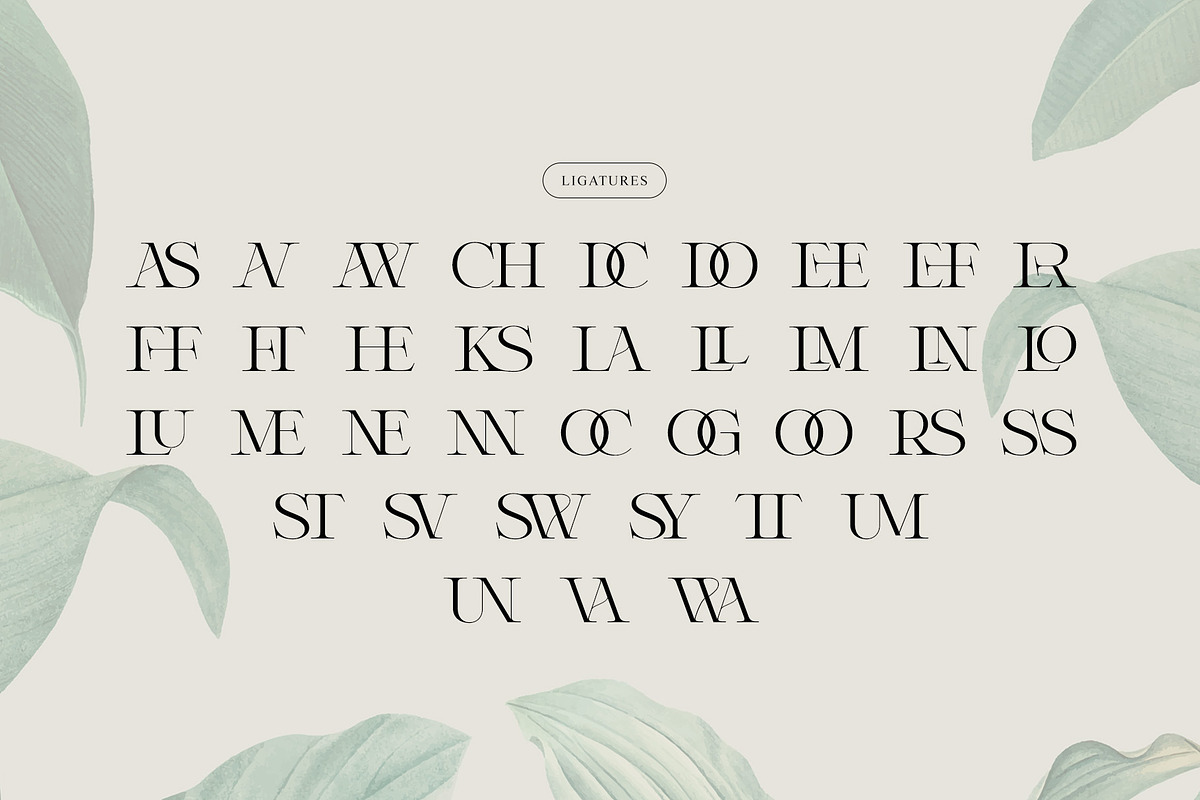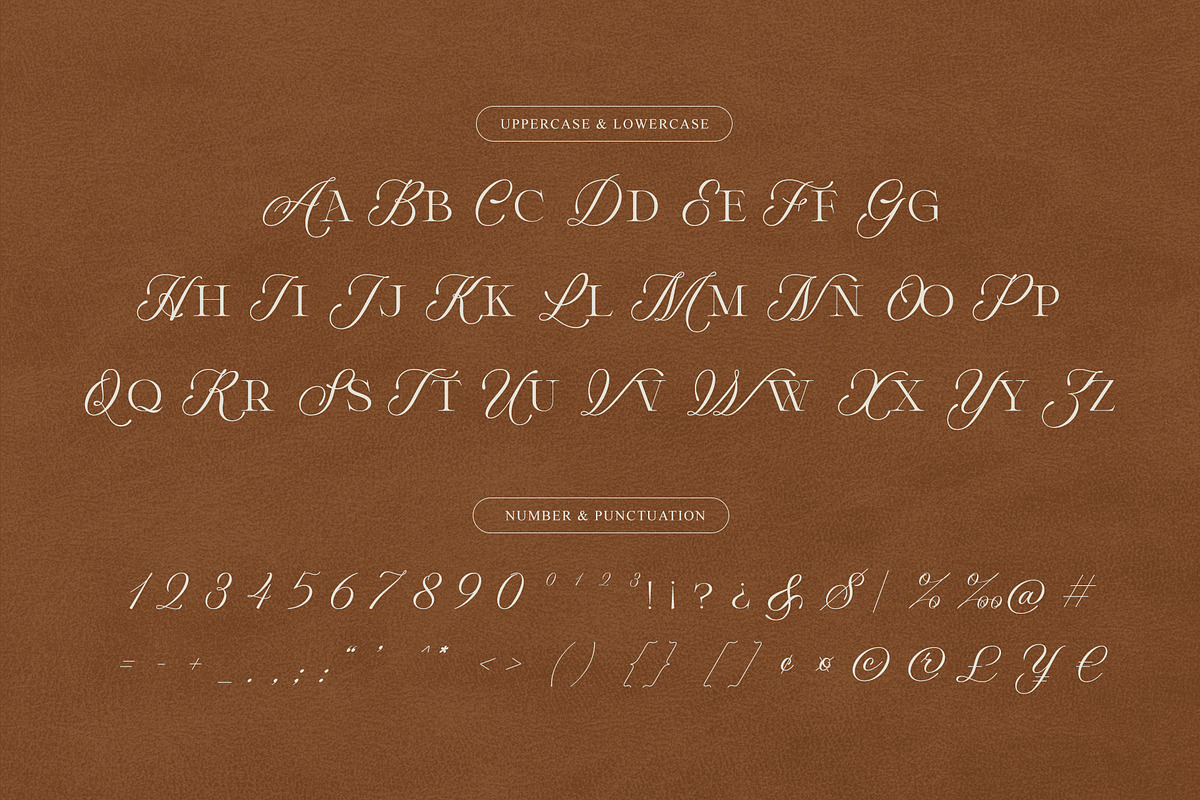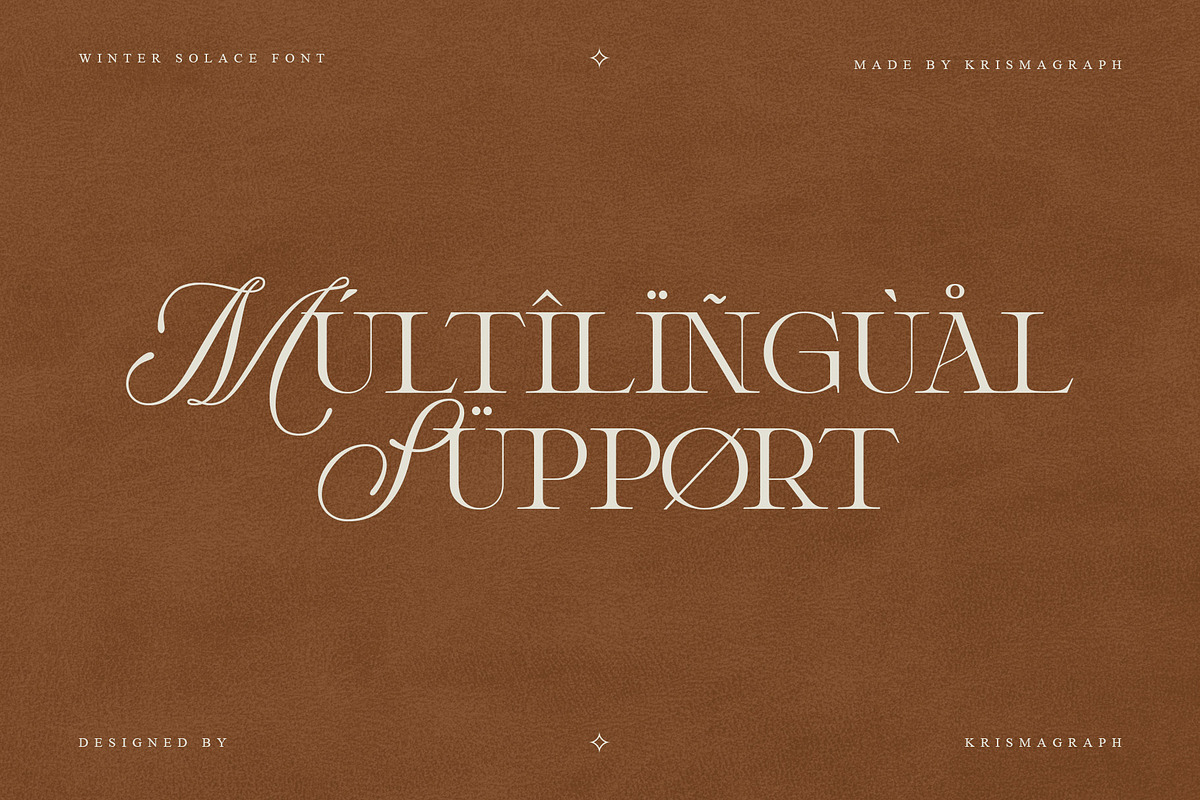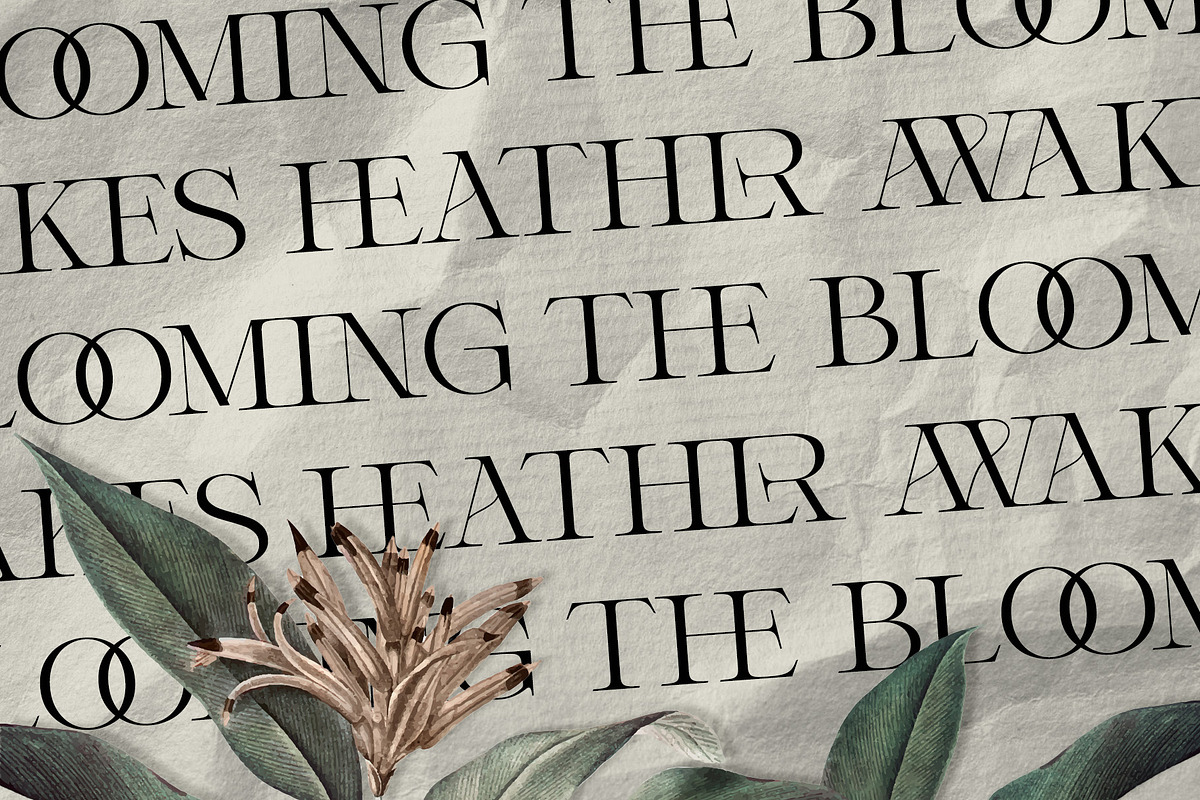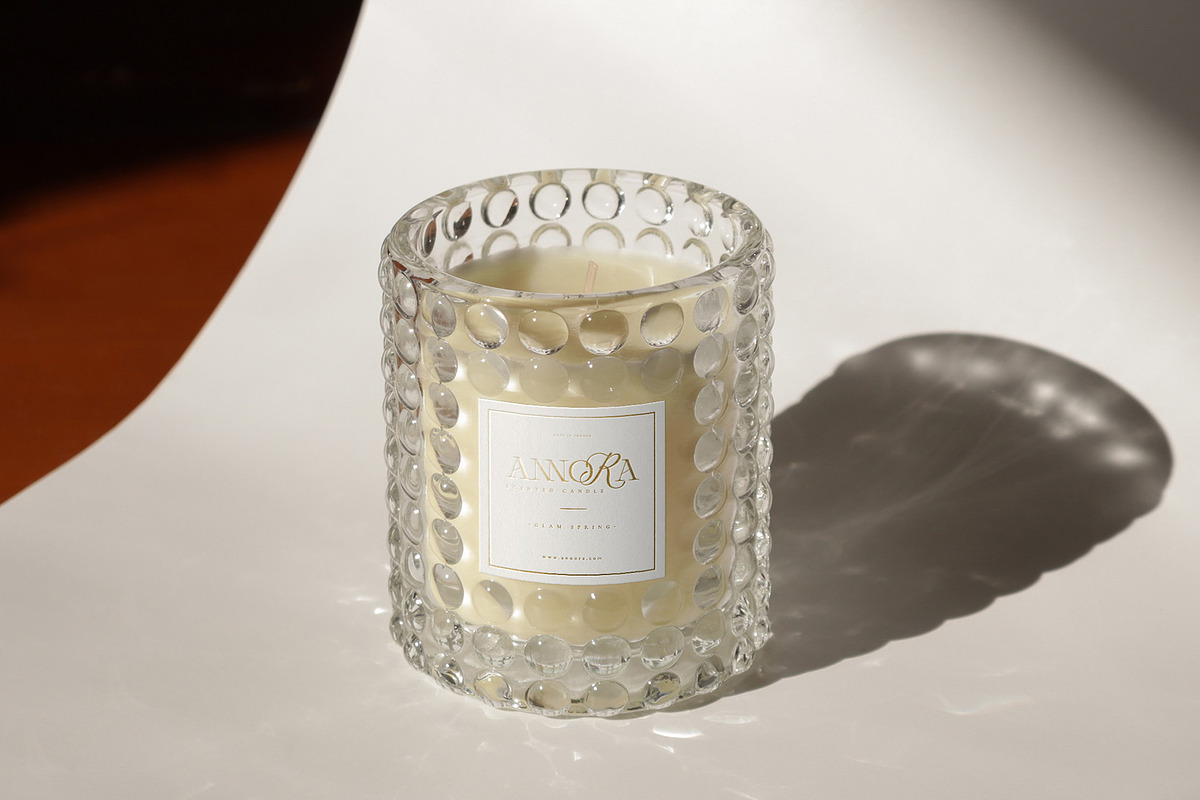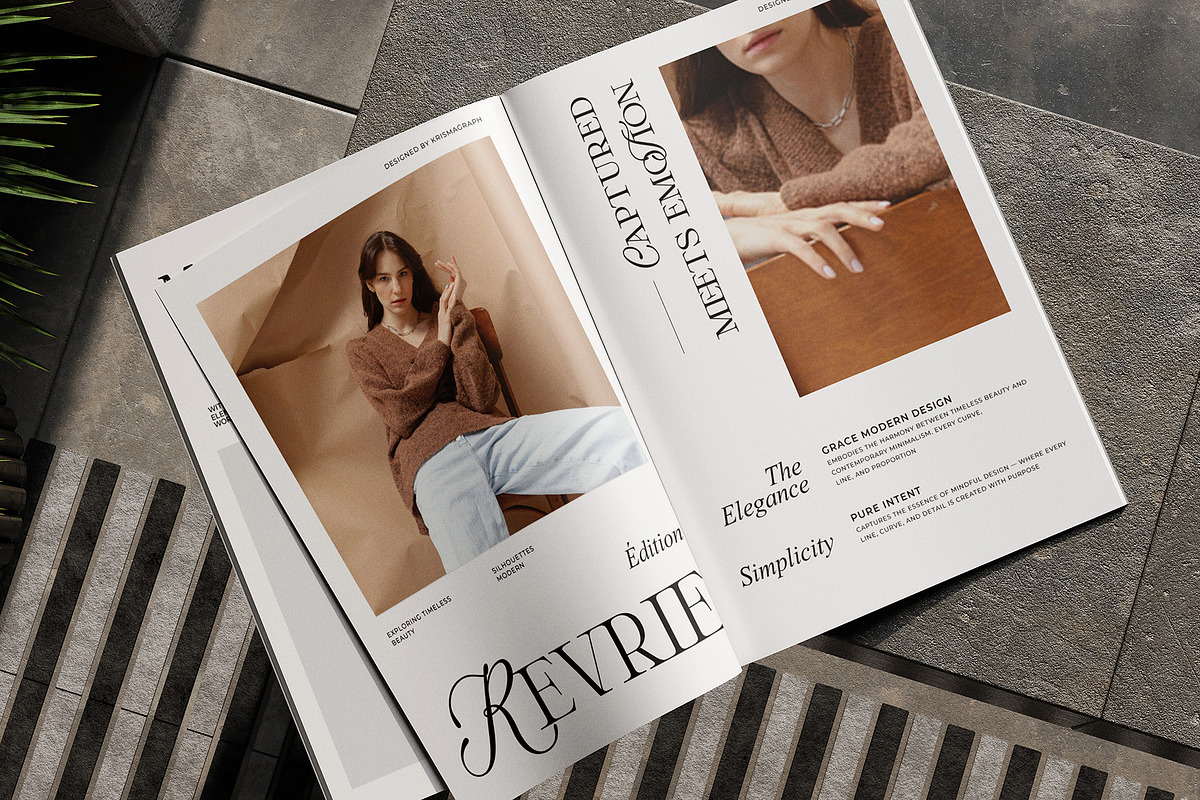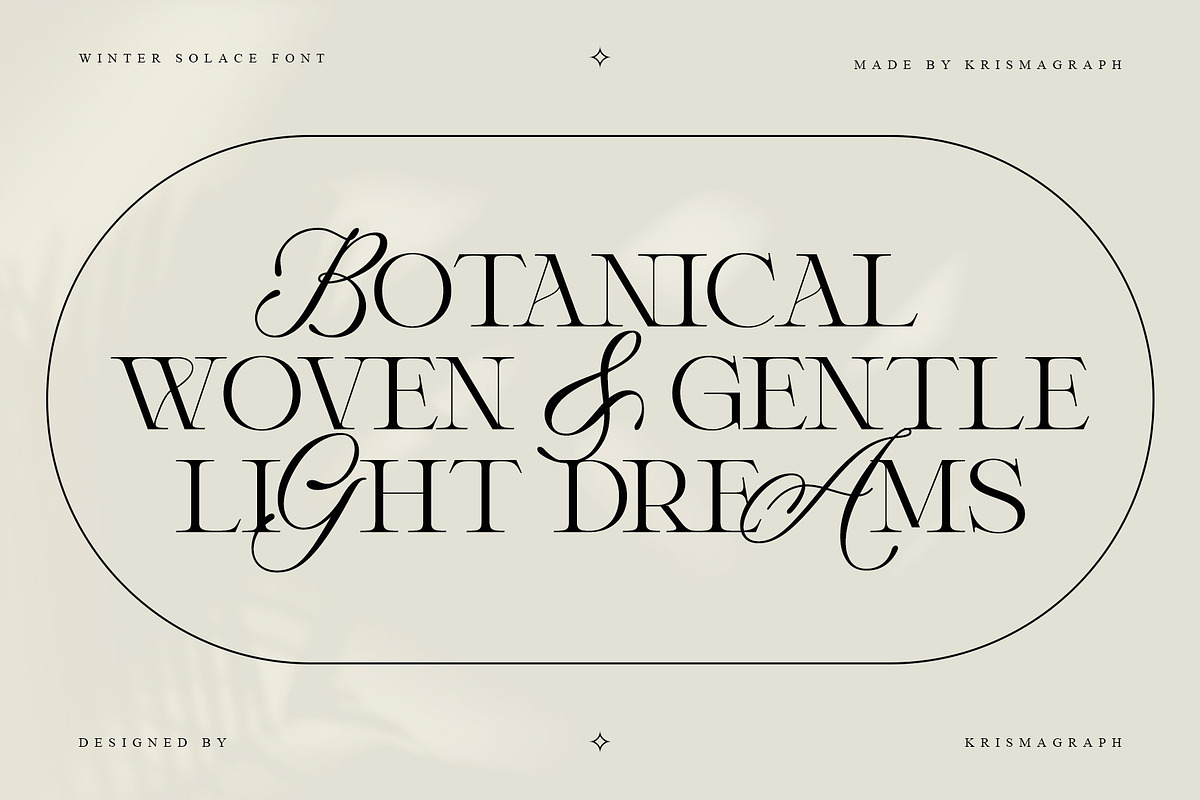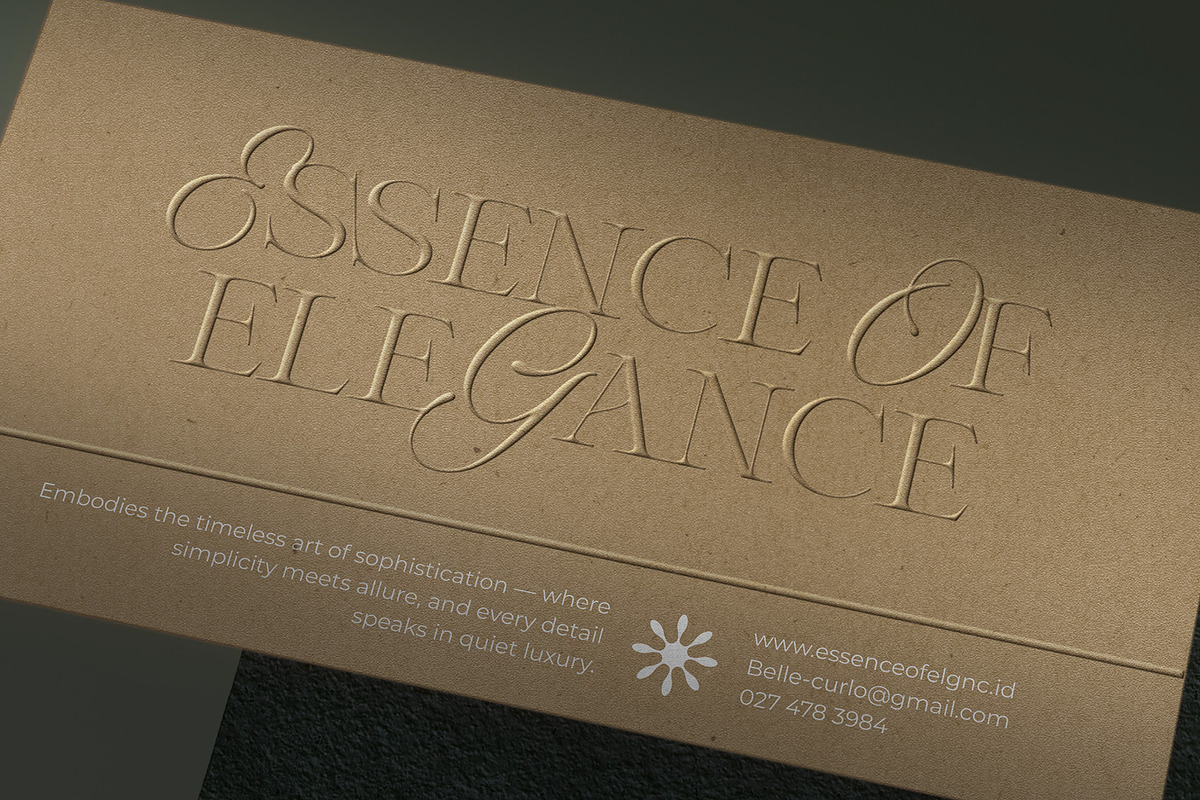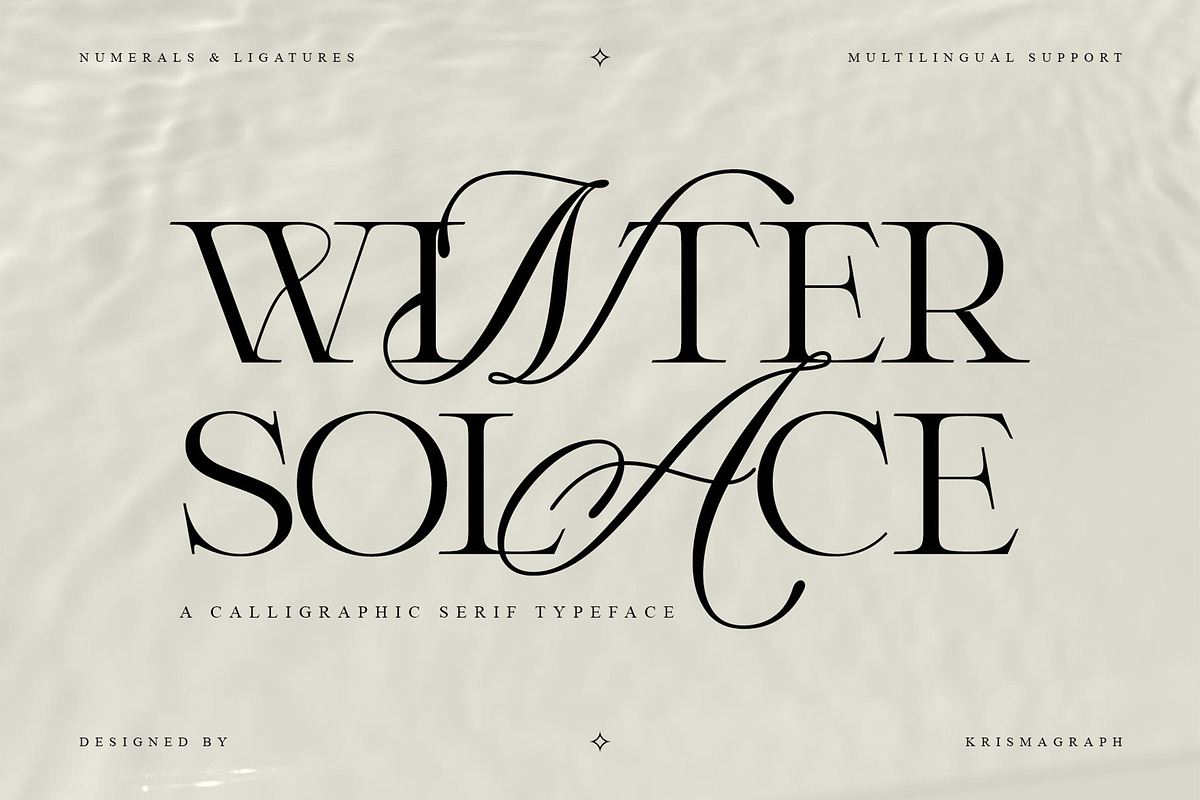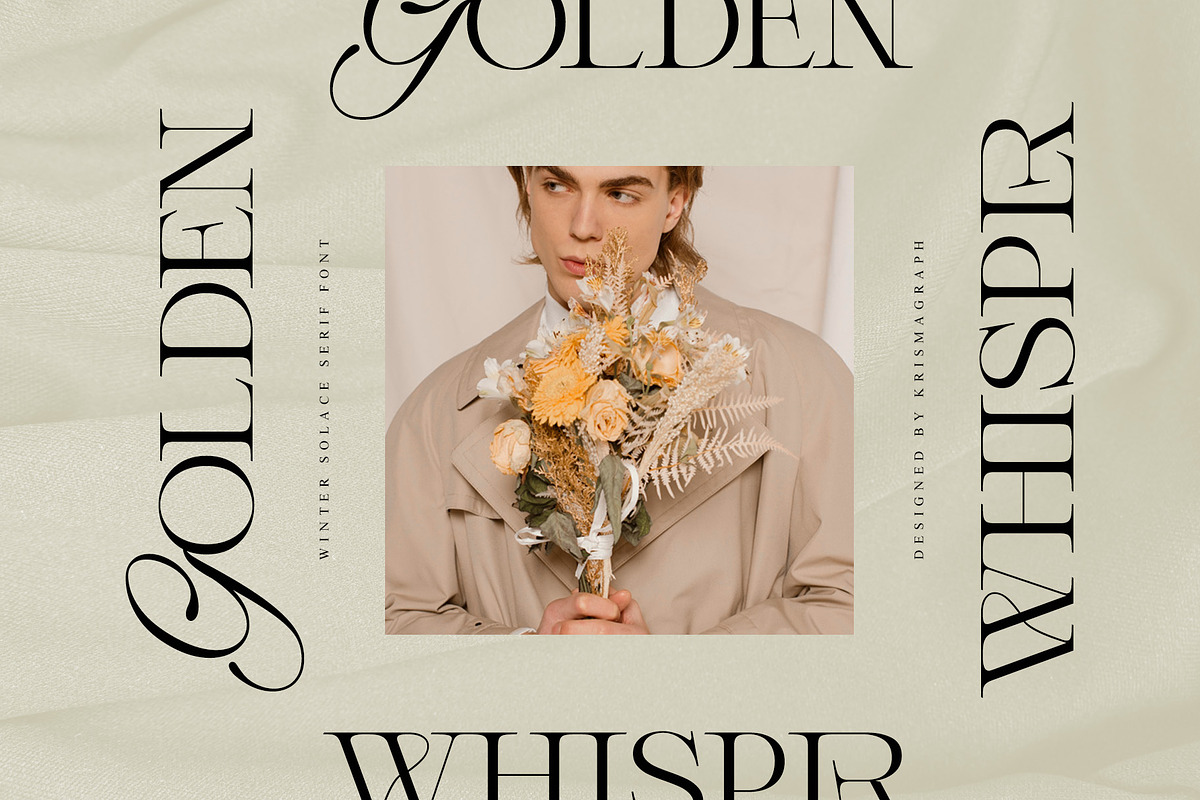
Winter Solace – Calligraphic Serif
Winter Solace is a calligraphic serif typeface that embodies sophistication and artistry. Its graceful contrast between thick and thin strokes creates a refined visual rhythm — making it ideal for editorial layouts, branding, luxury packaging, and high-end design projects.
Featuring elegant ligatures and numerals, this typeface combines classical calligraphic details with modern serif structure, resulting in a timeless and striking look. Perfect for designers who seek beauty, balance, and authority in typography.
- Numbers, fractions
- Punctuation and symbols